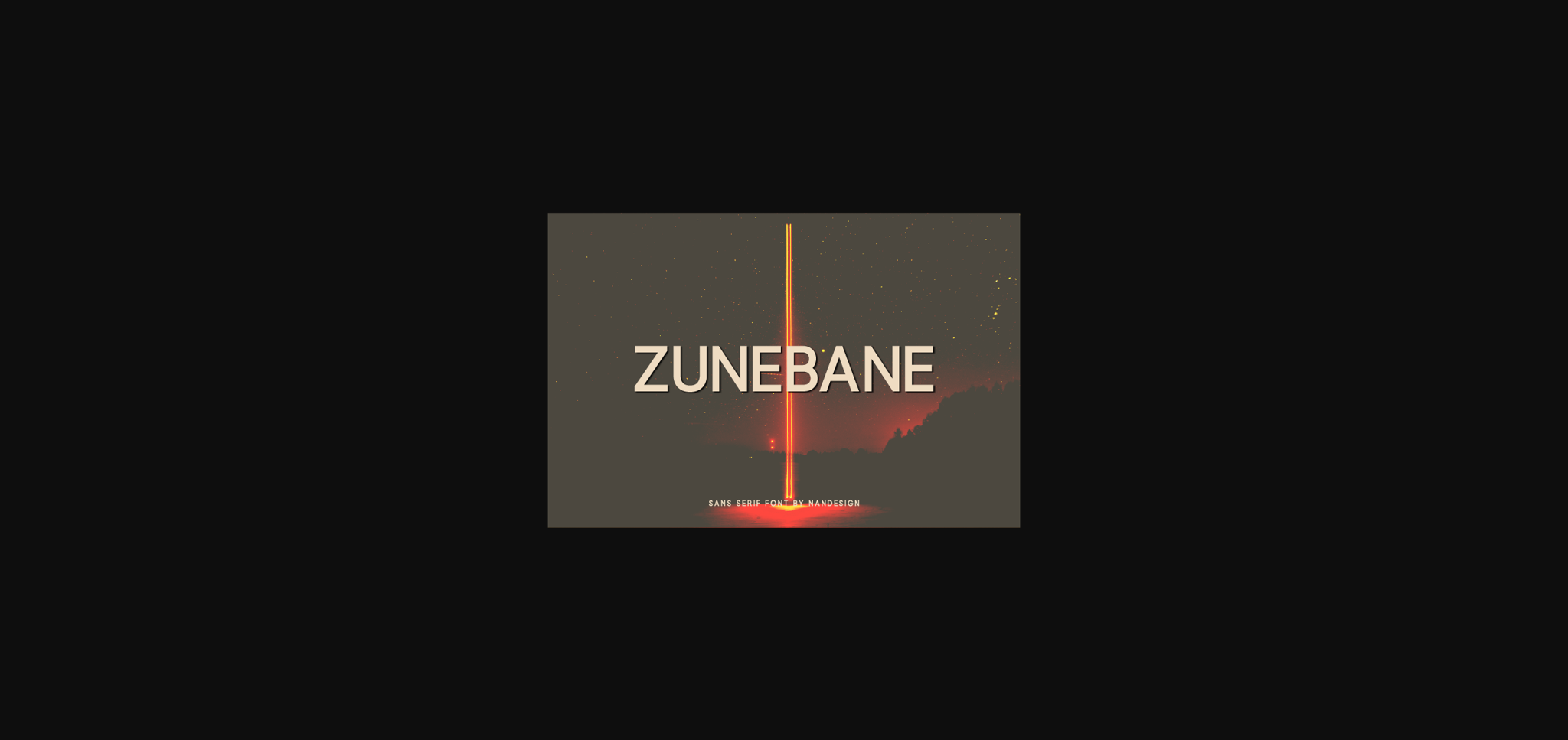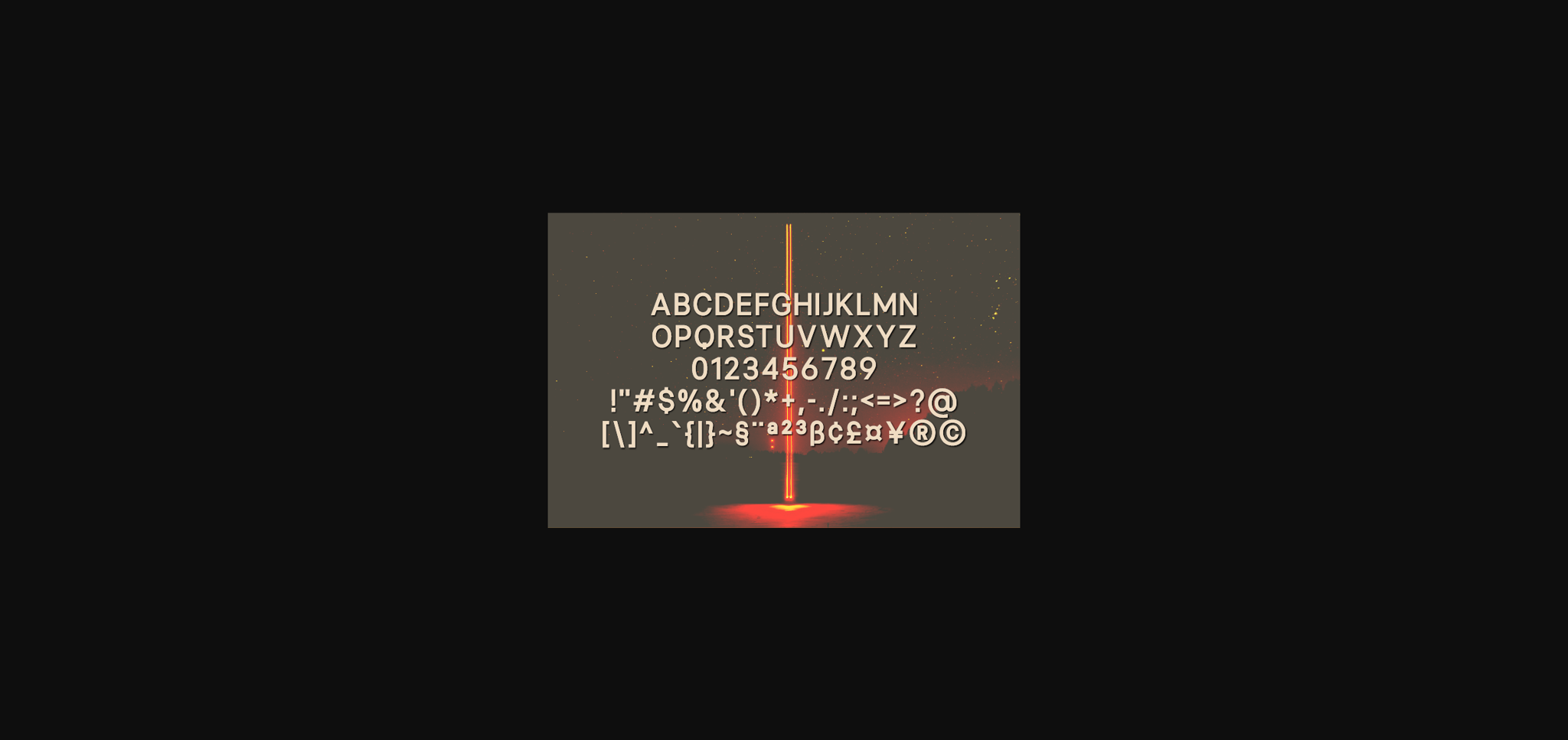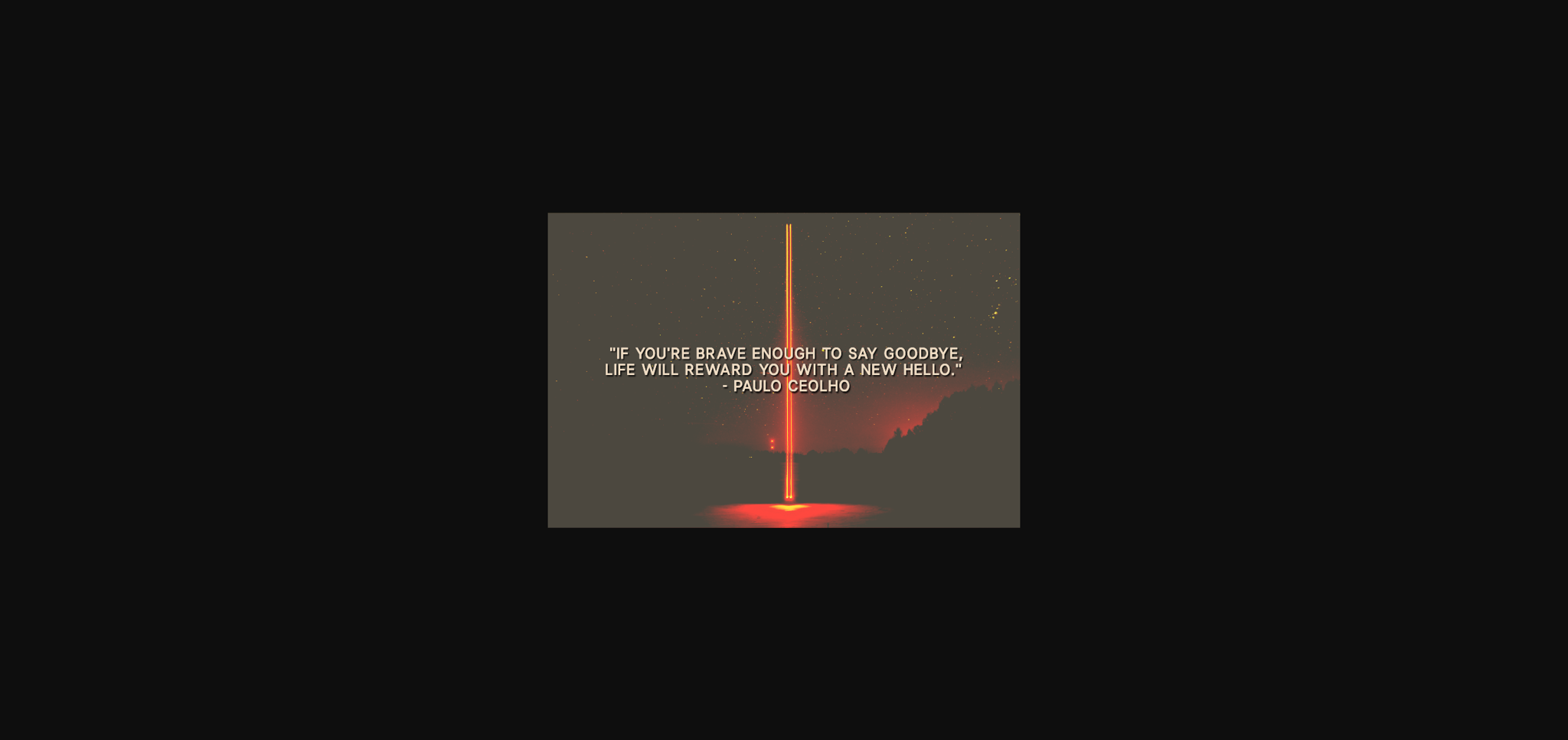
Zunebane Font
About Zunebane Font
Zunebane is a clean and neat sans serif font. It can be used for various purposes such as logos, wedding invitations, headings, t-shirts, letterhead, signage, labels, news, posters, badges and so much more.